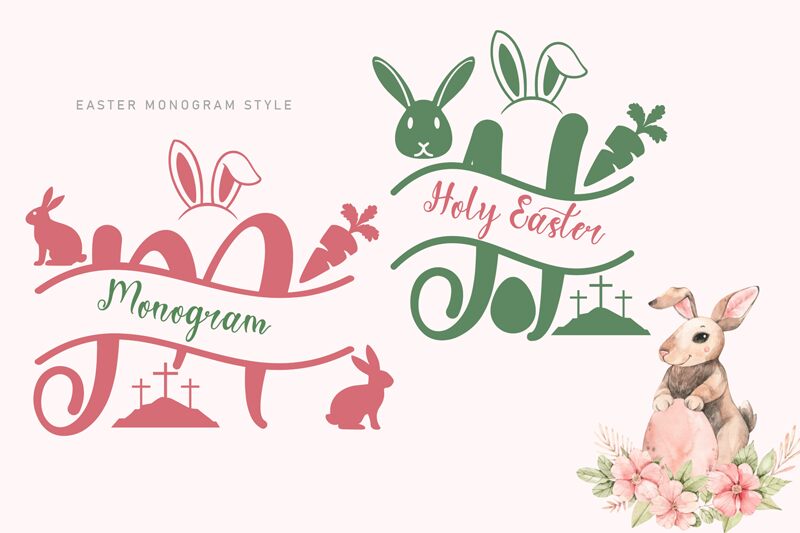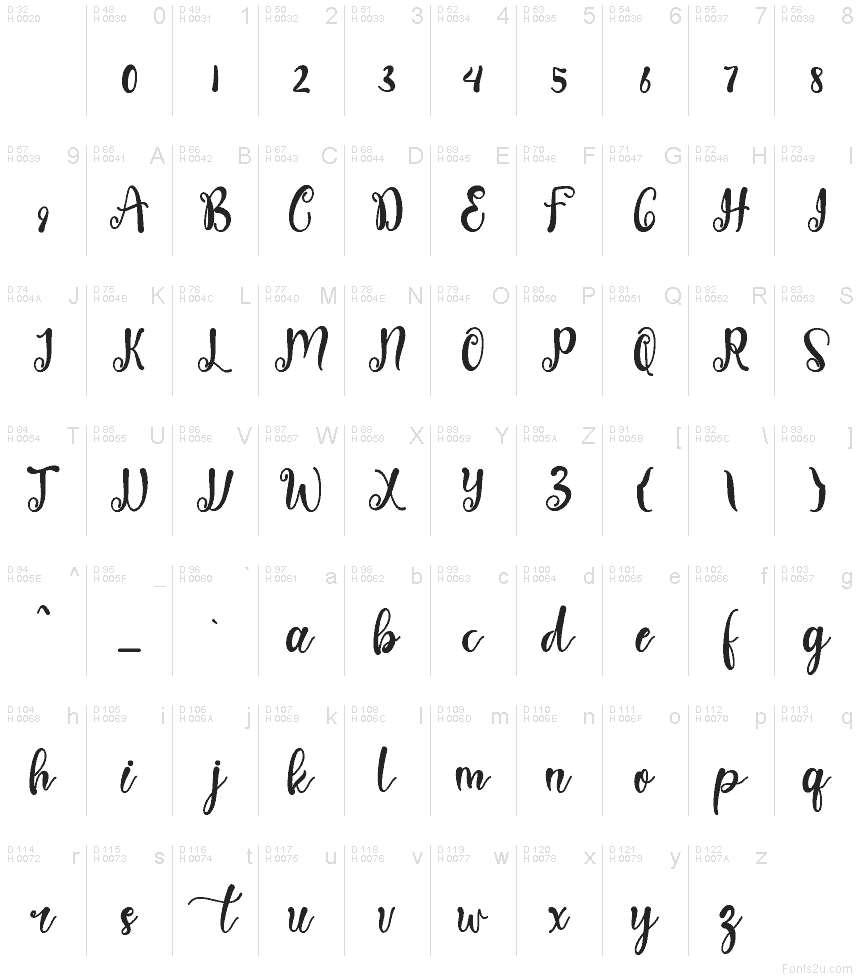
Holy Easter Demo
Holy Easter font by Yoga Letter is a free brush script font with a warm, festive spirit. Smooth, inky strokes and looping connections give it the feel of hand-lettered greetings done with a soft brush pen, while the tall, lively letters keep it bright and readable. There’s a gentle bounce in the rhythm that makes “Holy Easter” feel joyful rather than formal, like a note scribbled on a gift tag just before guests arrive.
Using Holy Easter, you can quickly dress up seasonal greeting cards, church event flyers, social media posts, party invitations, product packaging, and even quote prints. This free font shines whenever you need cozy, faith-inspired or holiday-themed lettering with a handmade touch. For a balanced look, pair Holy Easter with a clean sans serif for body text and let this script handle the headlines at larger sizes.